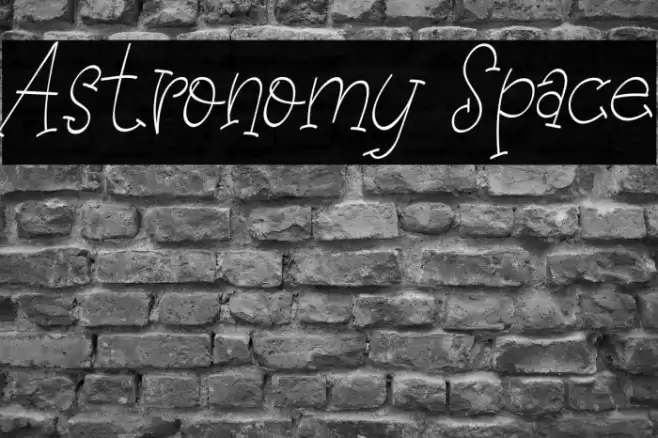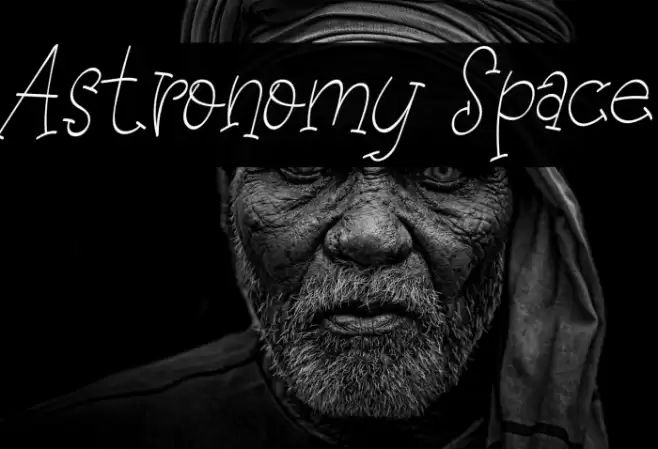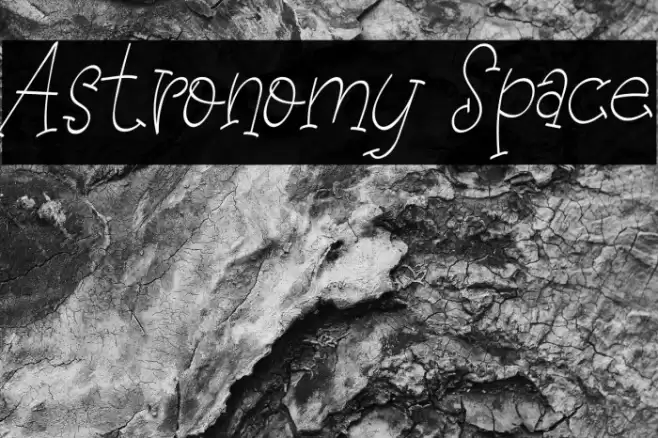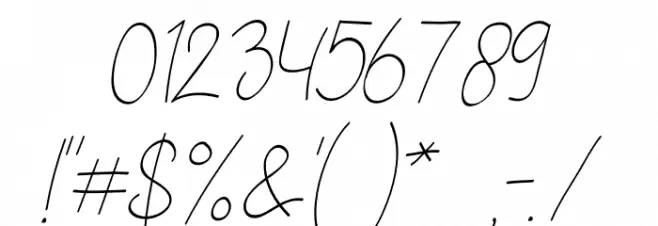
Astronomy Space Font
Astronomy Space Description
This font features a whimsical and playful handwritten style, characterized by its irregular and slightly tilted letterforms. The strokes are thin and delicate, giving it an airy and light appearance. The uppercase letters are tall and narrow, while the lowercase letters maintain a consistent flow with a slight slant. The numbers and special characters follow the same playful theme, making the font suitable for creative and informal projects. Its unique style adds a touch of personality and charm, making it stand out in any design.
A whimsical handwritten font with thin, delicate strokes and playful character from Cartoon fonts.
- Font: Astronomy Space
- Proposed Projects: Ideal for greeting cards, children's books, playful branding, and creative invitations.
- Weight: Light
- Overall Style: Playful
- Use Case: Logos, Invitations, Creative projects